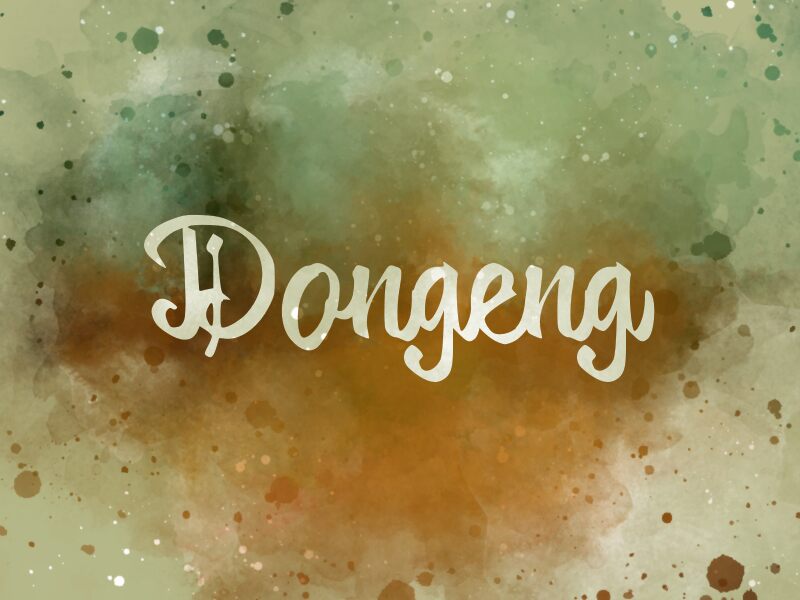
Dongeng
Introducing Dongeng, a creative handwritten font designed by Wahyu Eka Prasetya. With its light weight and modern feel, this font is perfect for crafting invitations, branding projects, posters, and other creative projects.